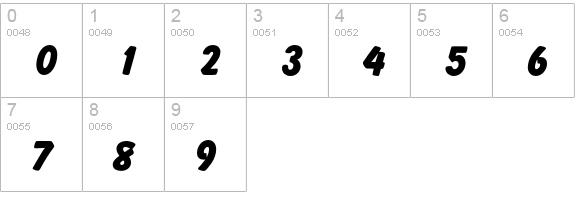
Stormy Font Details
Introducing Stormy font, a captivating typeface that exudes power and energy with its bold and dynamic design. This striking font is perfect for making a strong statement in your designs, whether it be for branding, advertising, or any creative project that requires a touch of boldness. With its sharp edges and unique character shapes, Stormy font commands attention and leaves a lasting impression. Its versatility allows it to be used in various design contexts, adding a modern and edgy flair to any project. The best part? Stormy font is available for free download at FontsMarket.com. Don't miss out on the opportunity to add this powerful font to your collection and take your designs to the next level. Download Stormy font today and unleash the storm of creativity in your work!